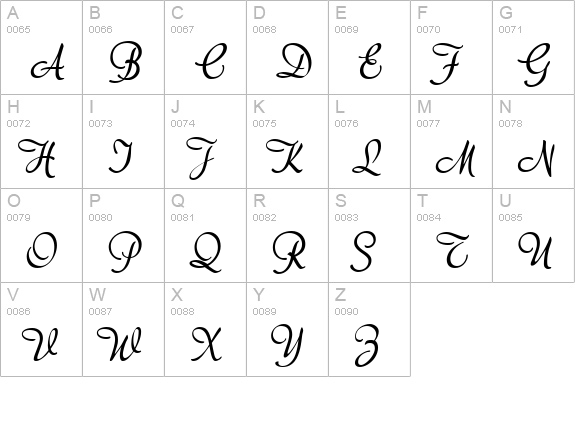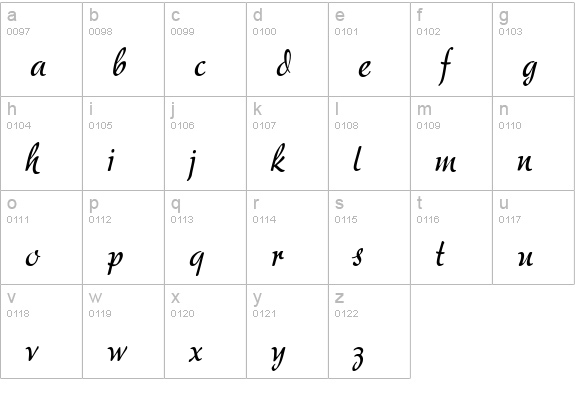
Adore Font Details
Adore font is a stunning display typeface that exudes elegance and sophistication. With its graceful curves and timeless appeal, this font is perfect for adding a touch of luxury to any design project. Whether you're creating wedding invitations, branding materials, or social media graphics, Adore font will make your text stand out in style. The best part? Adore font is available for free download at FontsMarket.com. This means you can easily access this exquisite font without breaking the bank. So go ahead and elevate your designs with Adore font today – it's the perfect choice for those who appreciate beauty and quality in their typography.